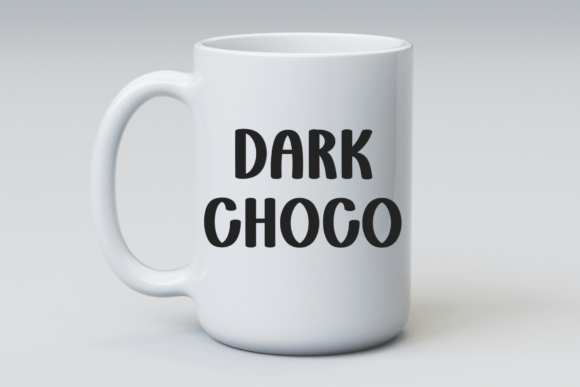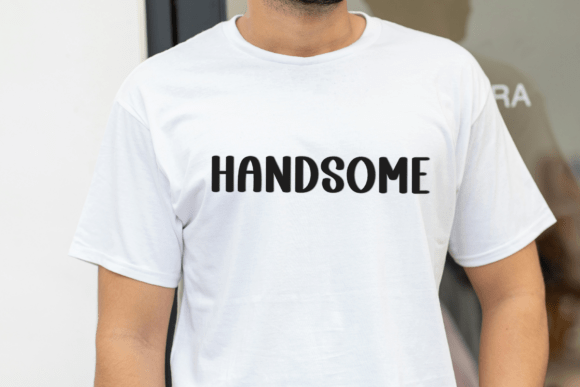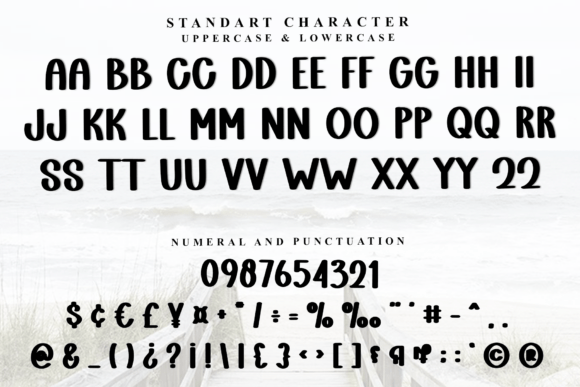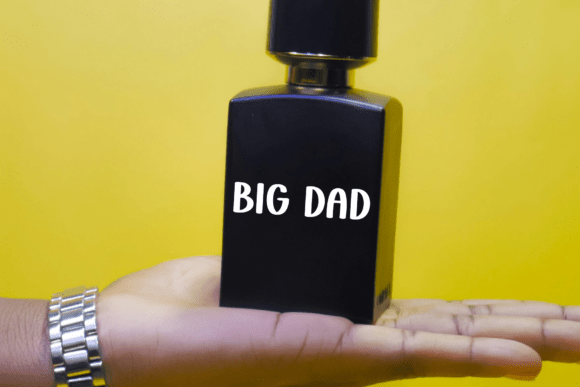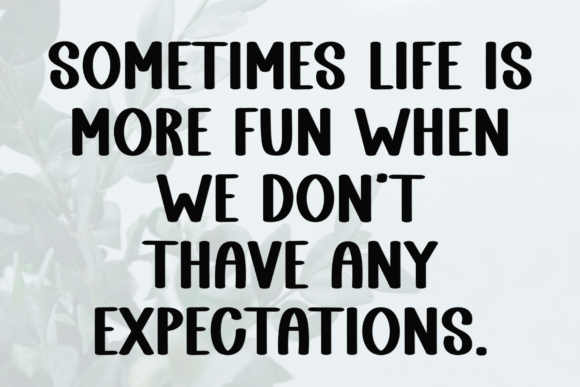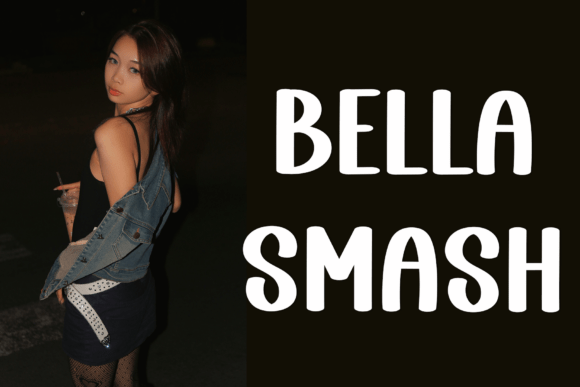
Dreaming Princess Font: Elevate Your Designs with a Touch of Elegance
In the world of typography, a font can make all the difference in the success of a design project. For designers, crafters, and creative enthusiasts, finding the perfect font that combines beauty, uniqueness, and versatility can be a daunting task. This is where the Dreaming Princess Font comes in – a stunning, eye-catching typeface that is sure to elevate your designs to new heights.
The Beauty of Dreaming Princess Font
Dreaming Princess Font is a beautifully crafted font that boasts a soft, unique touch. Its distinctive strokes give it a special character that sets it apart from other fonts in the market. The font’s design is a perfect blend of elegance and playfulness, making it suitable for a wide range of design projects, from crafts and DIY projects to commercial and digital designs.
Key Features of Dreaming Princess Font
- Unique and Distinctive Strokes: The font’s strokes are carefully designed to give it a special character that makes it stand out from other fonts.
- Versatile and Meaningful: The font’s design is versatile and meaningful, making it perfect for use in various design projects, including crafts, digital designs, and commercial projects.
- Variety of Characters: The font comes with a range of characters, ensuring that you have plenty of options to choose from for your design projects.
Dreaming Princess Font is perfect for designers, crafters, and creative enthusiasts who want to add a touch of elegance and sophistication to their projects. Whether you’re working on a DIY craft project, designing a logo for a client, or creating digital art, this font is sure to impress. Its unique and distinctive strokes make it an excellent choice for:
- Crafts and DIY Projects: Use the font to create beautiful and eye-catching titles, headings, and quotes for your craft projects, such as scrapbooking, card making, and journaling.
- Digital Designs: The font is perfect for use in digital designs, including social media graphics, blog posts, and website designs.
- Commercial Projects: Use the font to create stunning logos, brochures, and advertisements for your clients or business.
Why Choose Dreaming Princess Font?
With so many fonts available in the market, why choose Dreaming Princess Font? Here are a few reasons why this font stands out:
- Unique and Eye-Catching: The font’s unique and distinctive strokes make it an eye-catching addition to any design project.
- High-Quality Design: The font is designed with high-quality and precision, ensuring that it looks great in any design project.
In conclusion, Dreaming Princess Font is a beautiful and eye-catching font that is perfect for designers, crafters, and creative enthusiasts. Its unique and distinctive strokes, versatility, and compatibility make it an excellent choice for a wide range of design projects. Whether you’re working on a DIY craft project or a commercial design project, this font is sure to elevate your designs and make them appealing to many audiences across different artistic and creative fields.